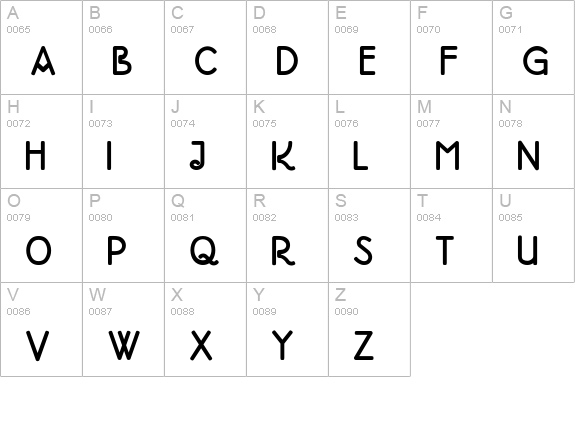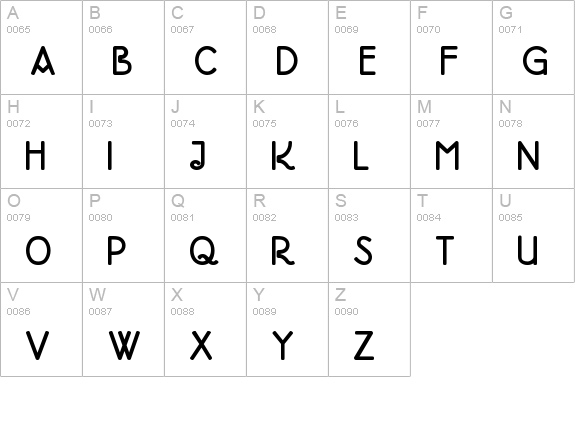
DoctorJekyll Font Details
DoctorJekyll font is a stunning display typeface that exudes elegance and sophistication. With its unique blend of modern and classic elements, this font is perfect for a wide range of design projects, from branding to editorial design. Featuring a clean and stylish look, DoctorJekyll font is sure to make your text stand out and leave a lasting impression on your audience. Whether you're designing a logo, poster, or website, this versatile font will add a touch of class and professionalism to your work. Best of all, DoctorJekyll font is available for free download at FontsMarket.com. So go ahead and elevate your designs with this beautiful and timeless typeface today!